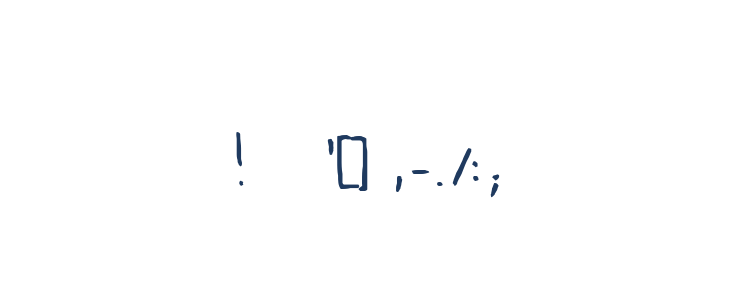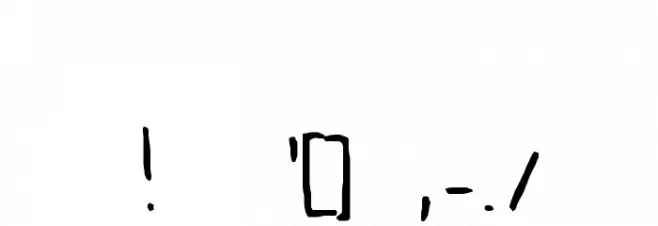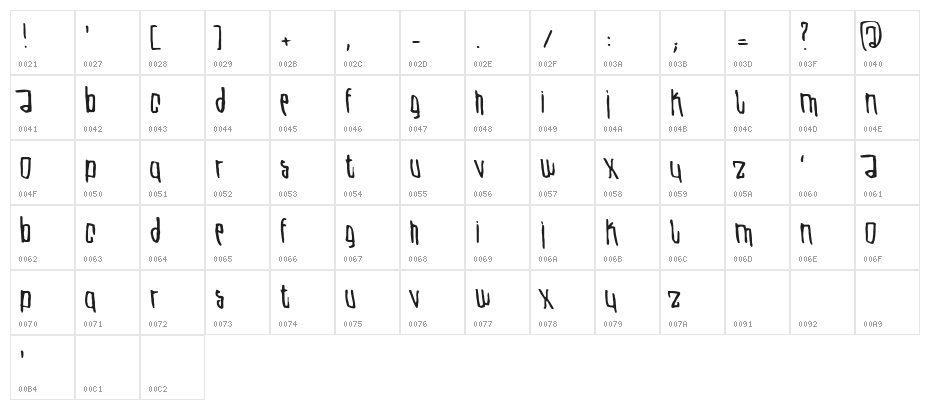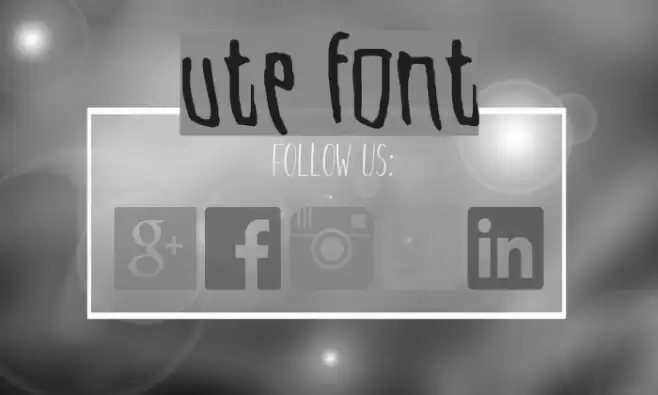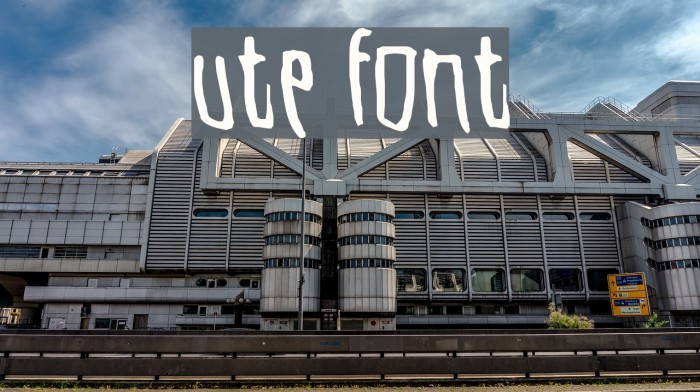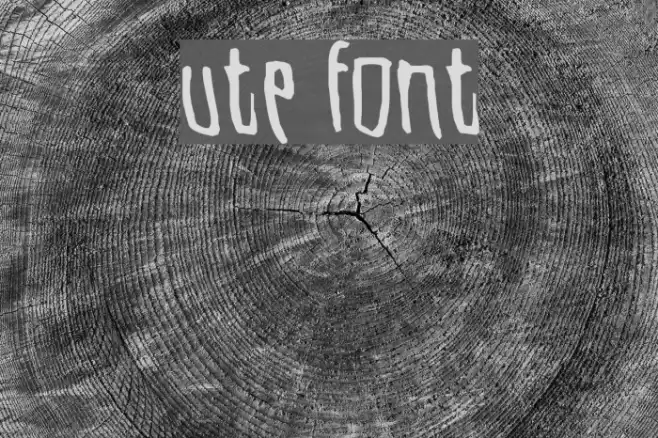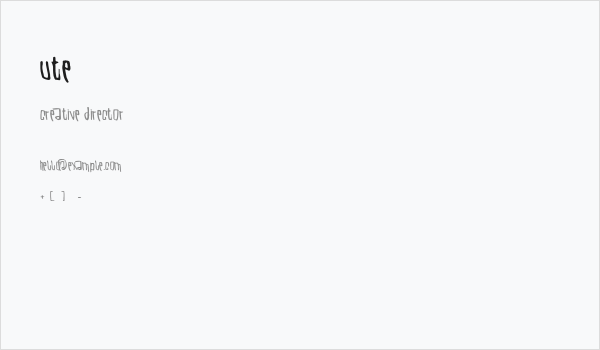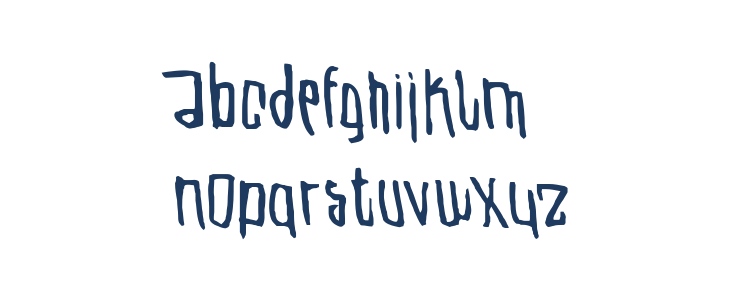
Ute Font
Ute Description
This font features a unique, hand-drawn style with irregular, organic shapes that give it a playful and artistic appearance. The characters are slightly elongated with uneven strokes, adding to its quirky and informal charm. The lowercase letters exhibit a consistent height, while the uppercase letters maintain a similar width, creating a cohesive look. The numbers and special characters follow the same stylistic approach, ensuring uniformity across the font. Its distinctive style makes it suitable for creative projects where a casual and artistic touch is desired.
| Proposed Projects | Ideal for art projects, children's books, creative posters, and informal branding. |